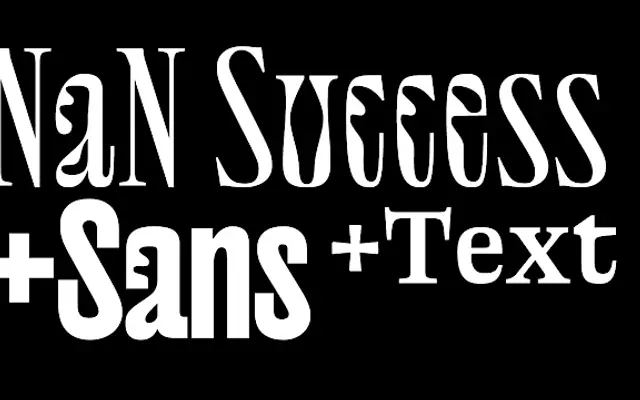
Digestive
Studio Triple · 2016
A display face that blends Art Nouveau ornamentation with Gothic architectural structure, developed by Studio Triple between 2016 and 2020.
Studio Triple describe the concept as an imagined offspring of Art Nouveau and Gothic architecture, two idioms rarely collapsed into a single typeface. The result sits in territory suited to editorial headers, cultural branding or packaging where period-adjacent decoration is the point. Limited detail is available on the page, but the framing suggests a considered rather than casual pastiche.
Described as a fusion of Art Nouveau ornamental sensibility and Gothic architectural forms, placing it firmly in the display category with a decorative, historicist subcategory.